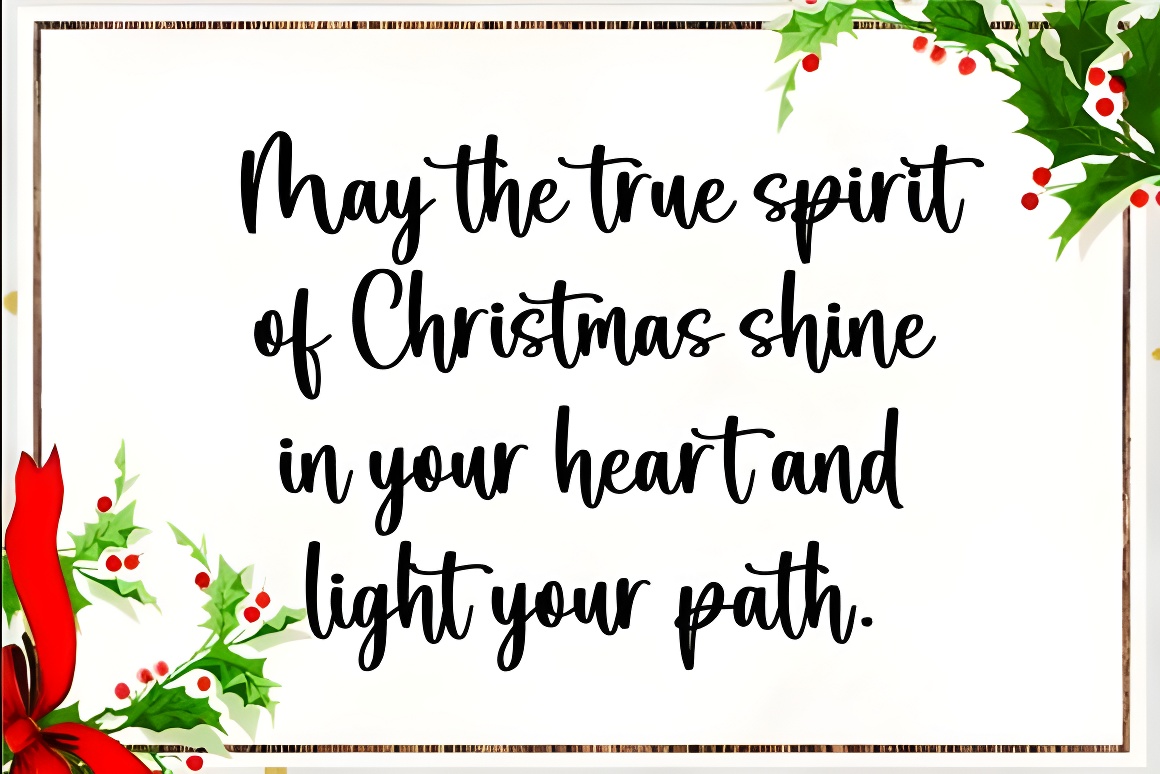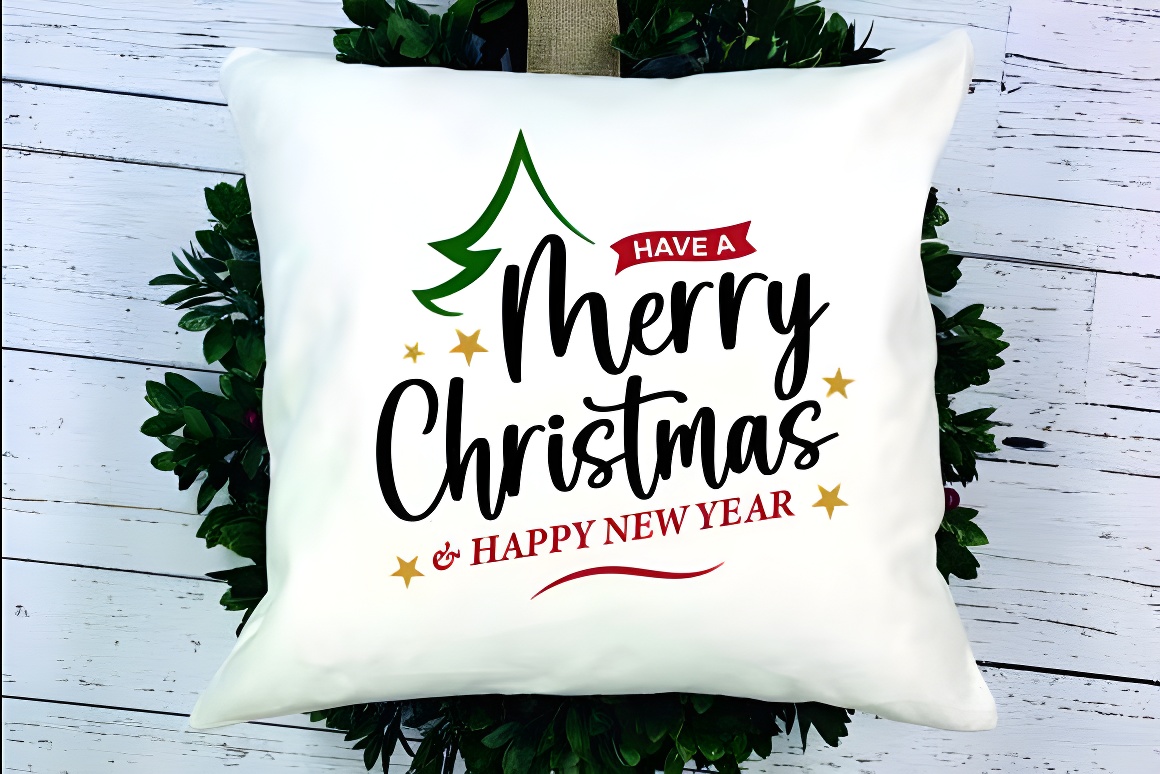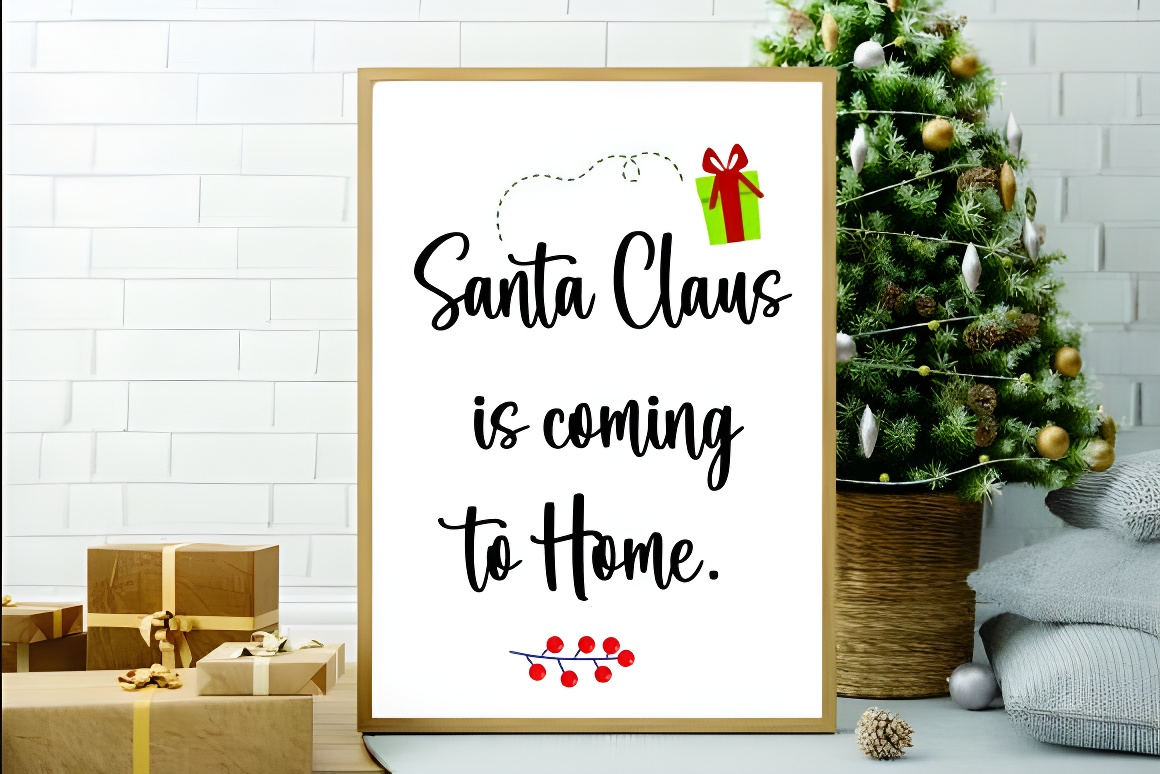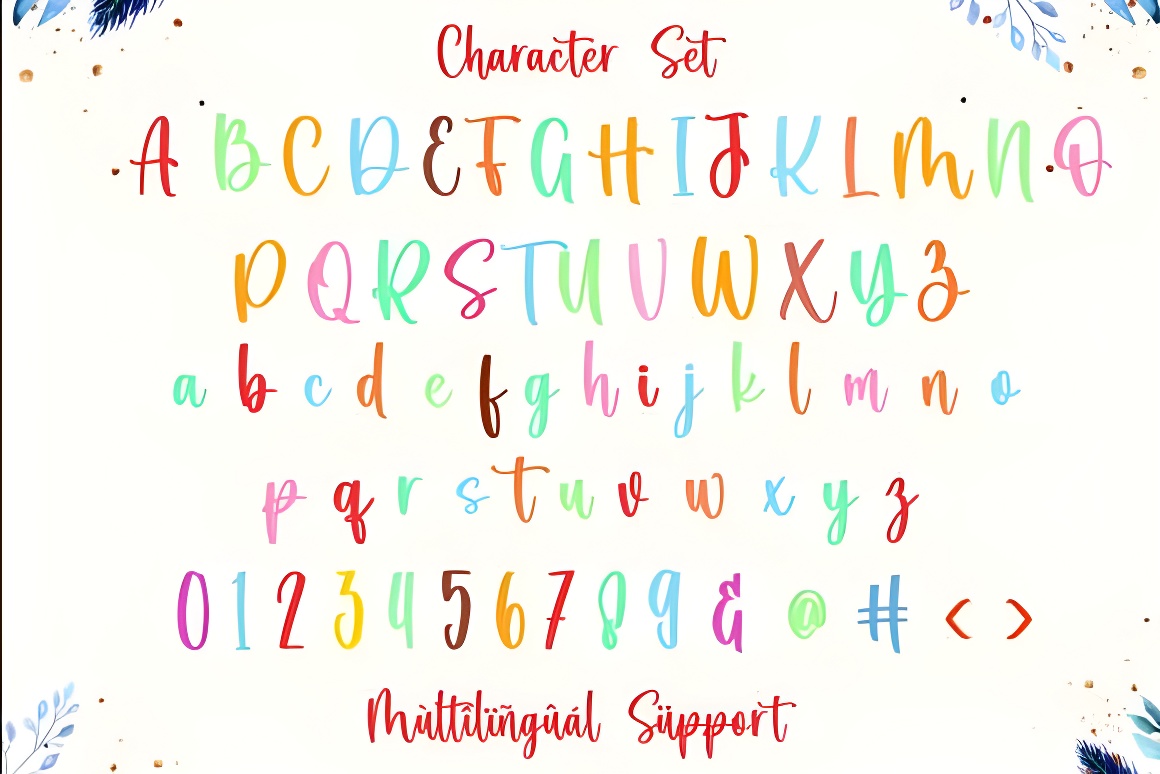
Hello Christmas Font - Festive Handwritten Script for Holiday Designs
Festive handwritten script font perfect for Christmas cards, holiday crafts, and winter designs. Add cozy elegance to invitations, decorations, and seasonal projects with charming handcrafted letters.